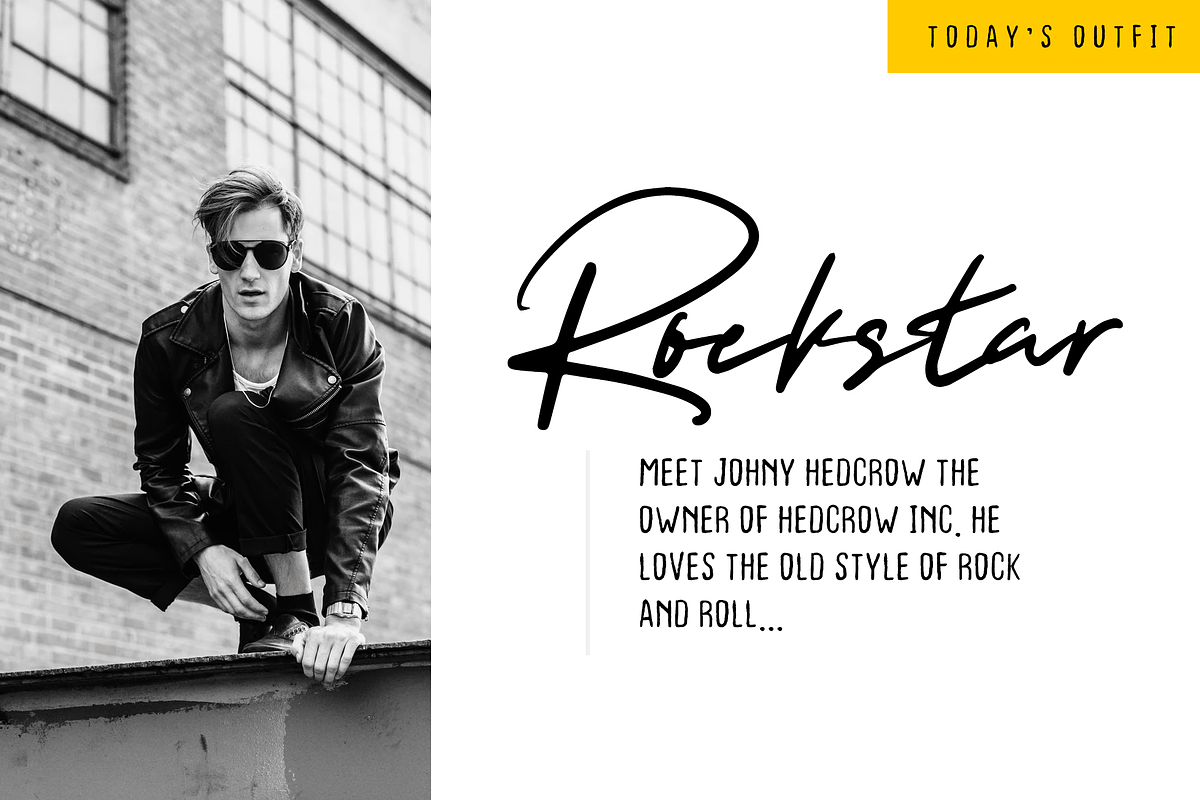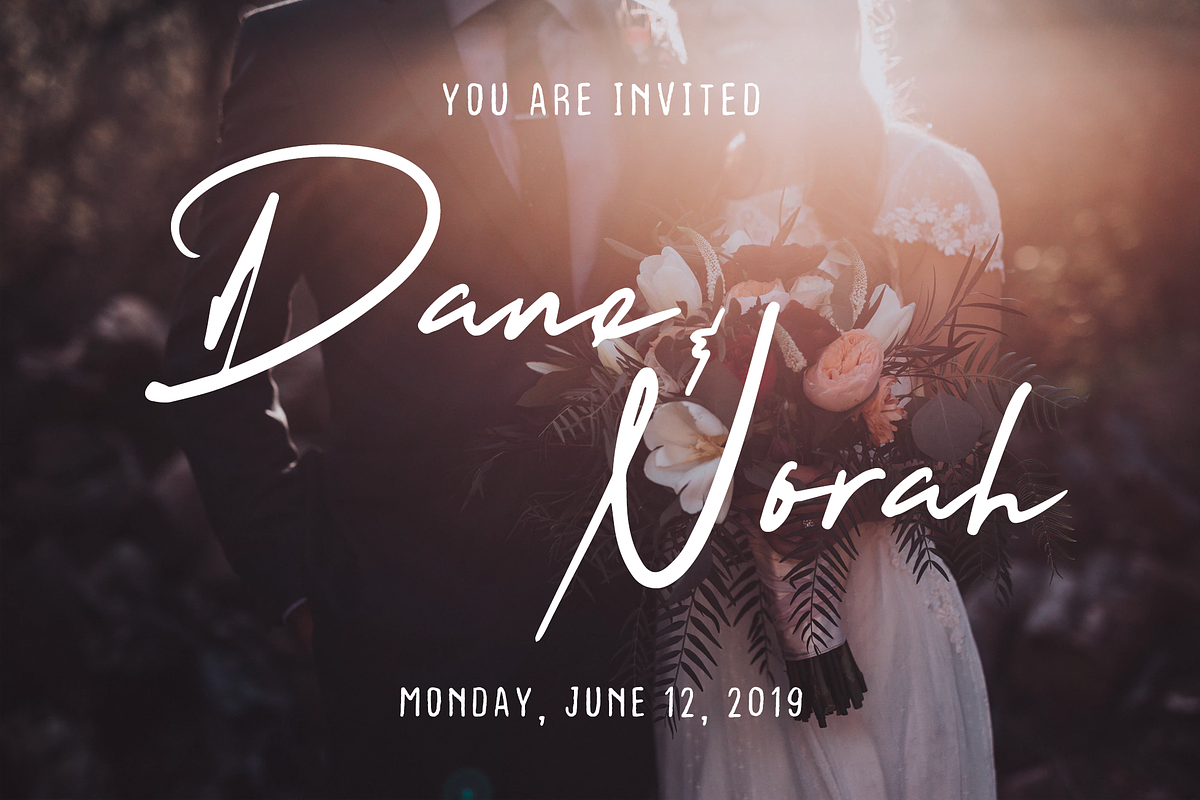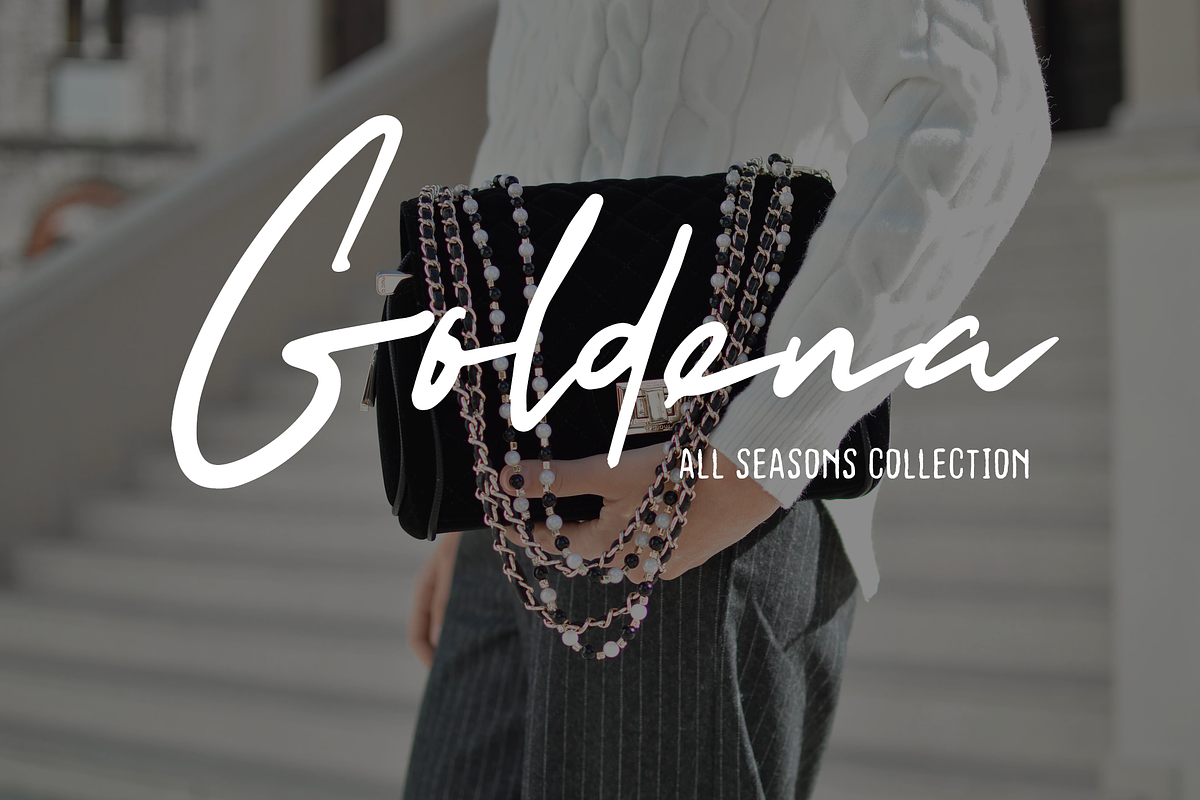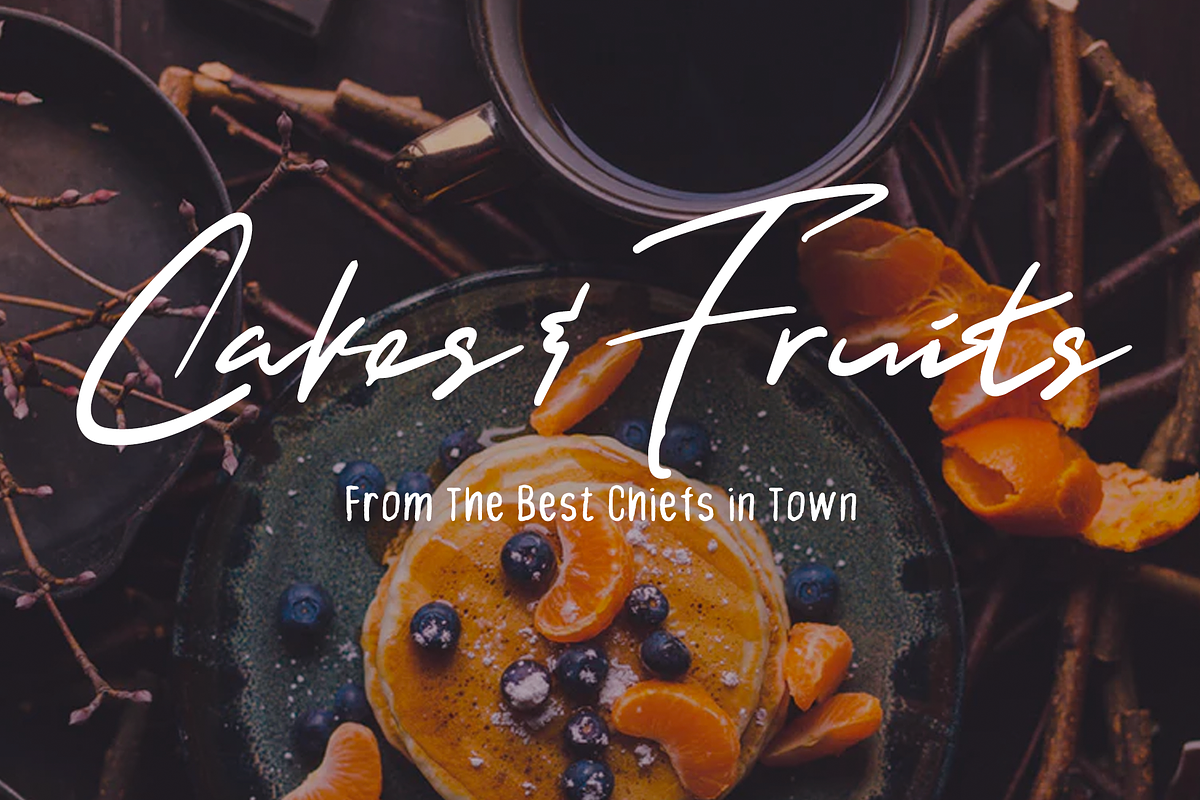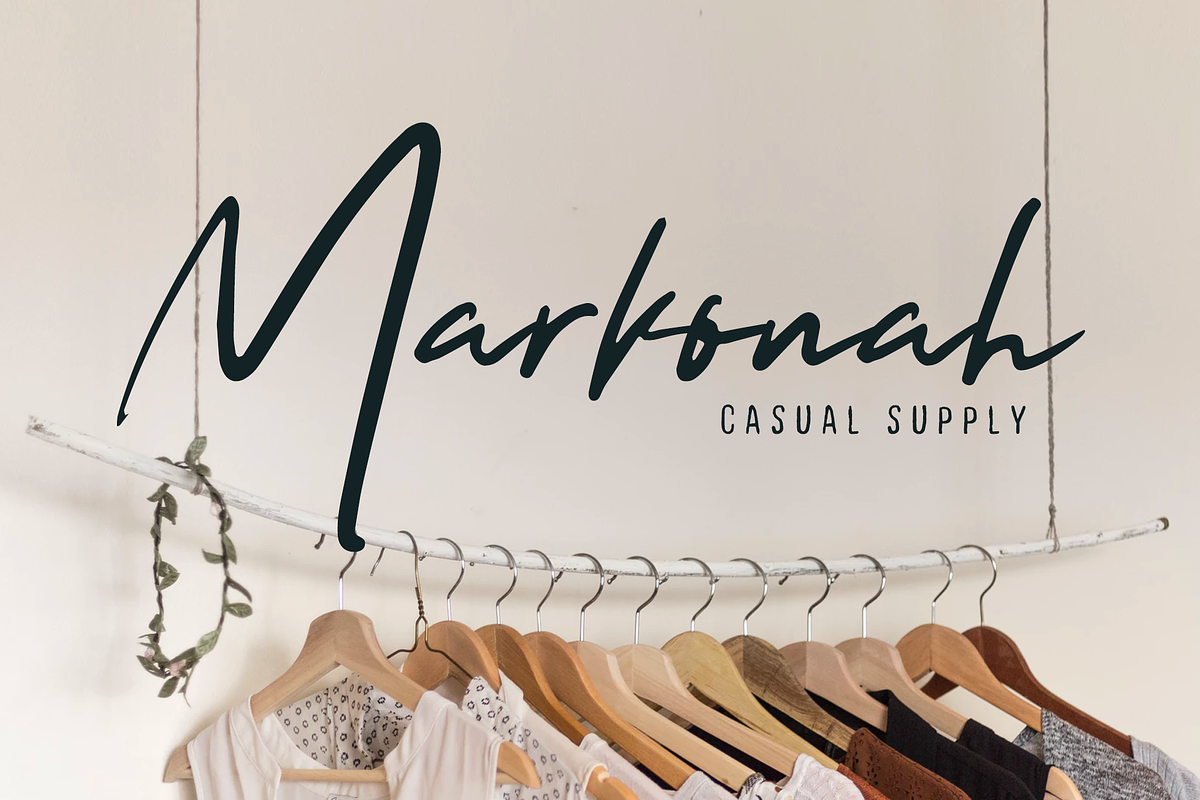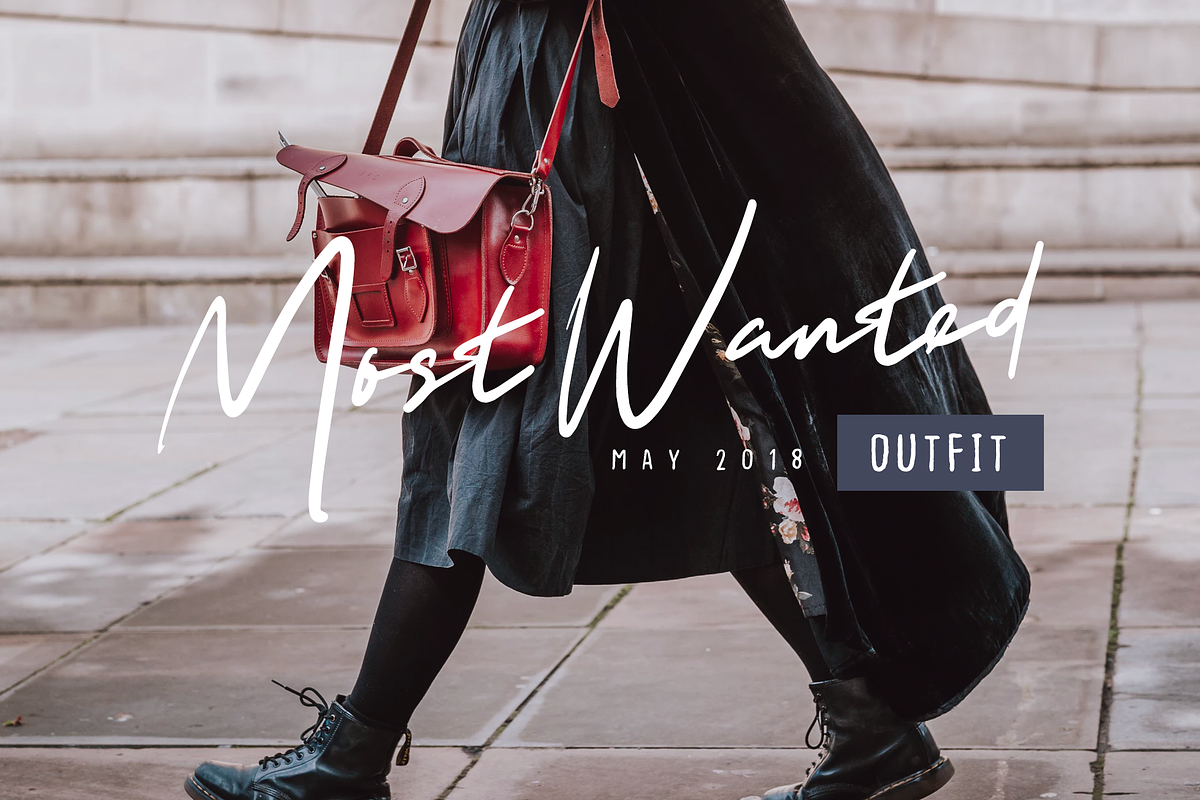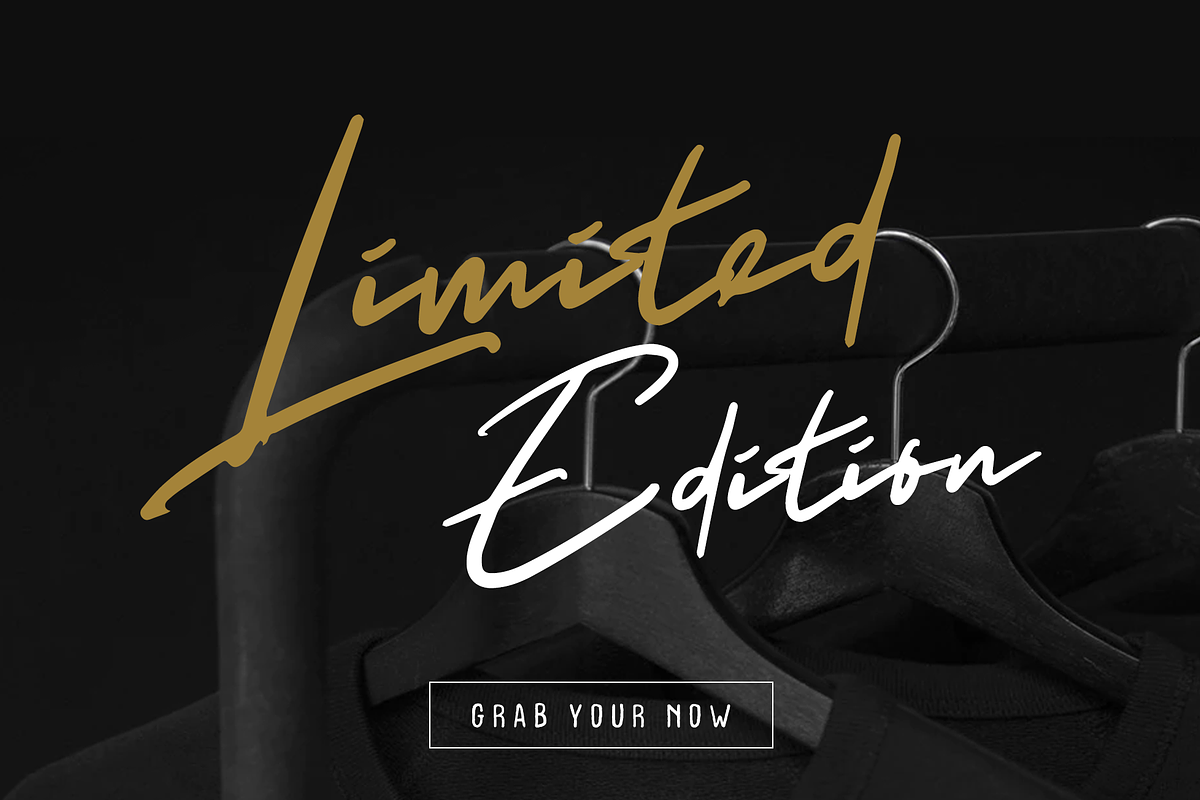
Hello Doe - Handwritten Font Duo
This font duo is combination of elegant and casual, mix together to create modern look & feel. This eye-catching pair will be suitable for cards, ads, poster, social media marketing, logo, merchandise and similar projects.
Hello Doe Script font (otf/ttf) contain alphabets, major punctuations, and numbers.
Hello Doe Sans (otf/ttf) contain alphabets, major punctuations, and numbers.